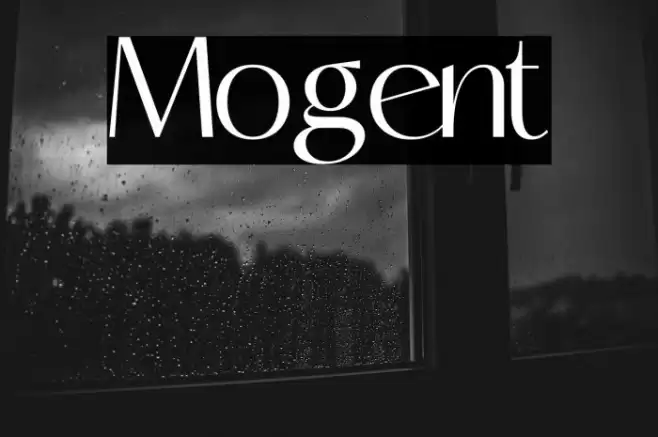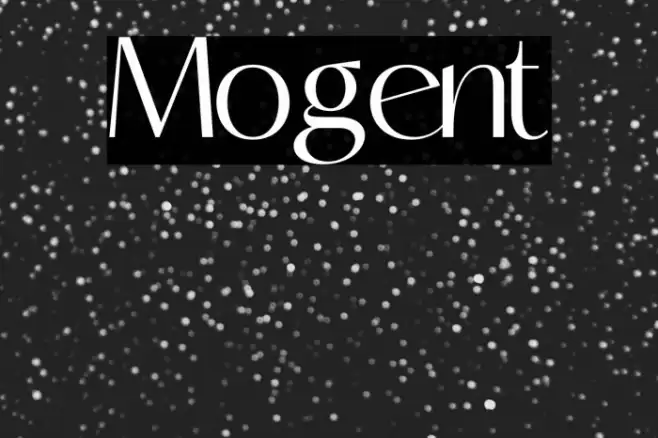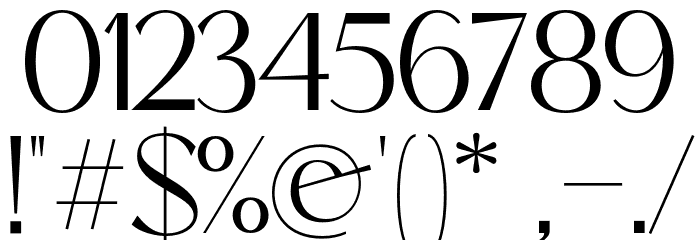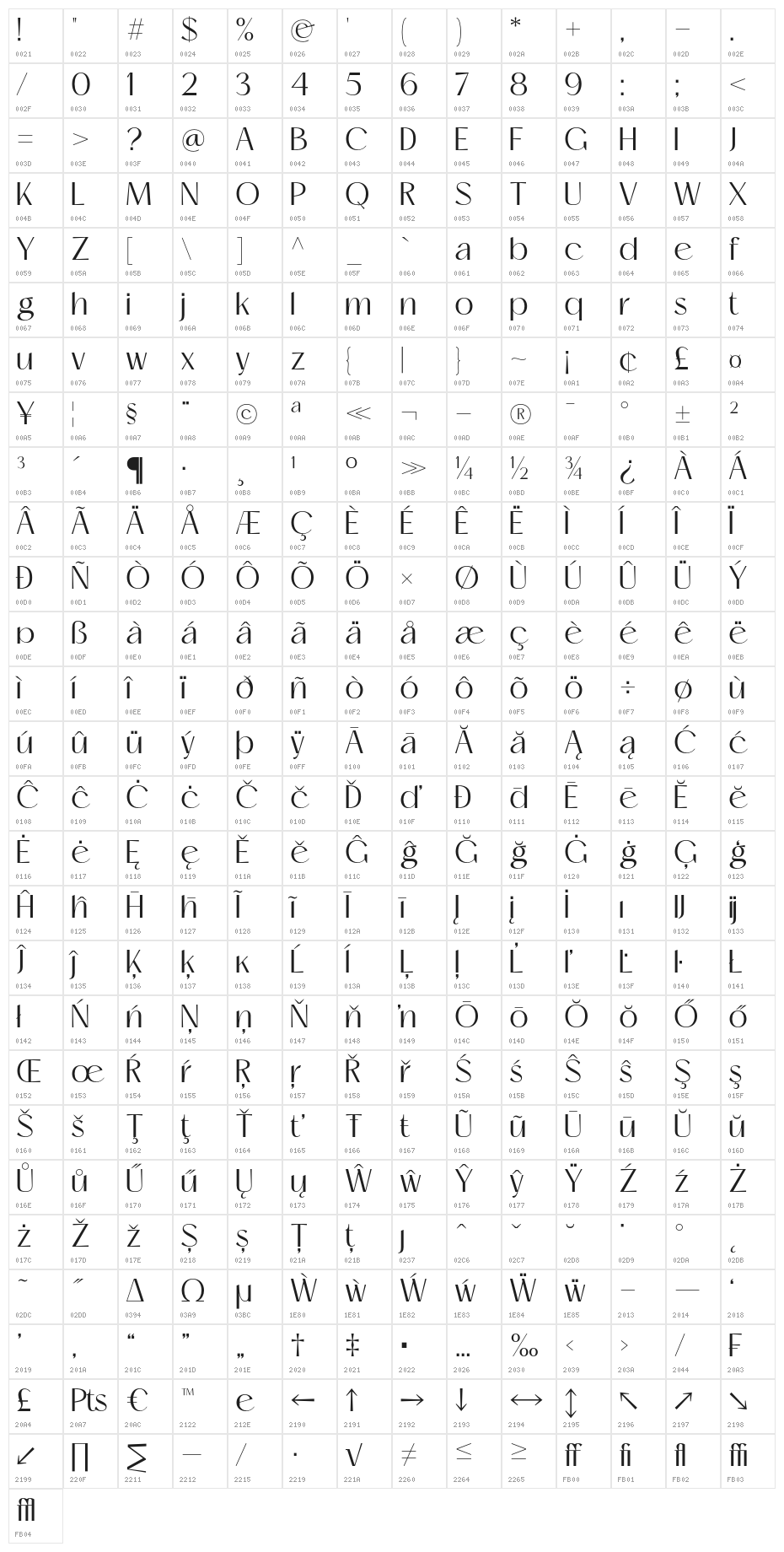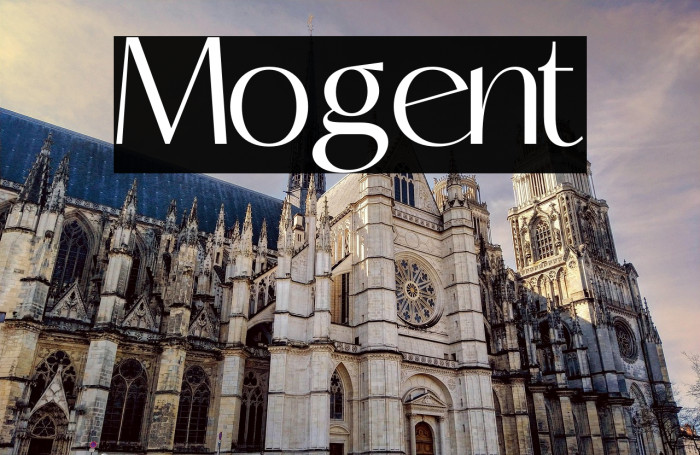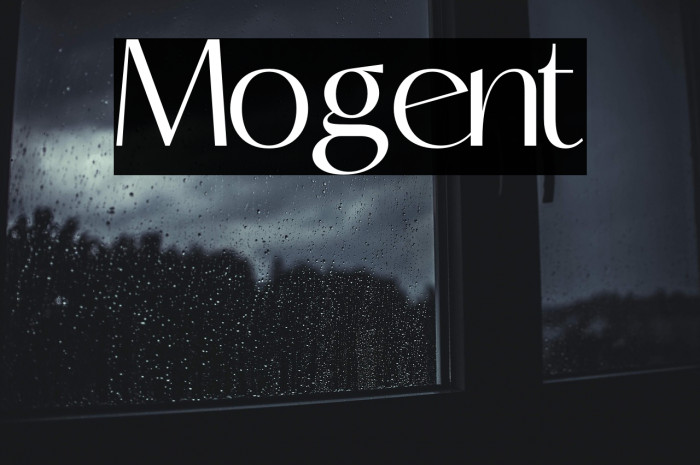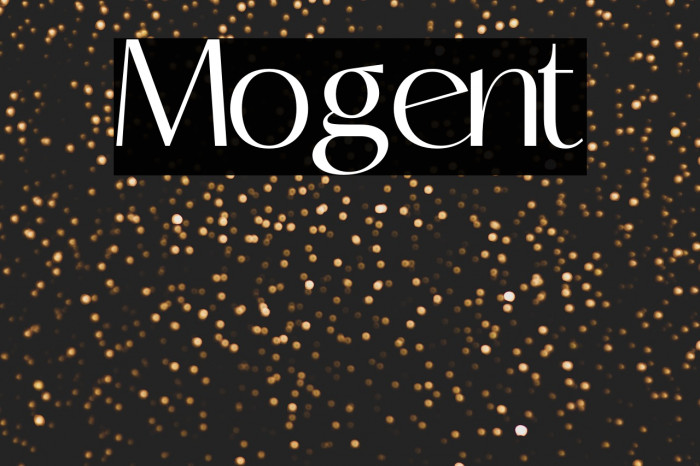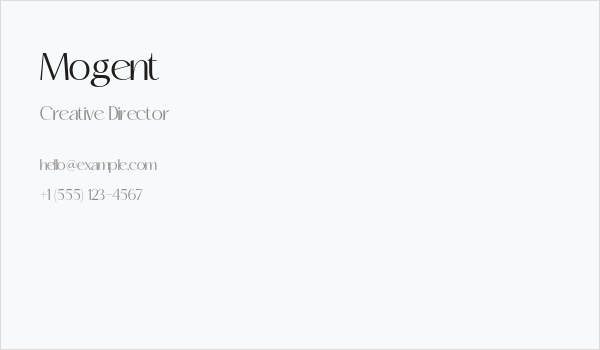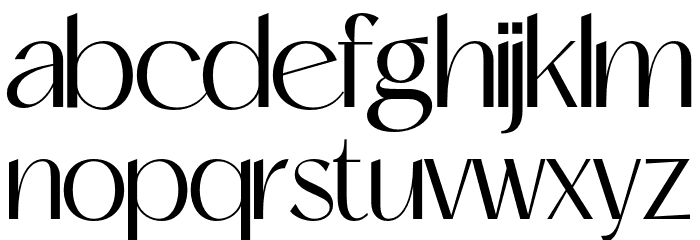
Mogent Font
Mogent Description
This font exhibits a modern and elegant style with a distinct geometric influence. The characters are sleek and elongated, with a subtle contrast between thick and thin strokes that adds a touch of sophistication. The uppercase letters are tall and commanding, while the lowercase letters maintain a harmonious balance with their rounded forms. The numerals are clean and consistent, complementing the overall aesthetic. The special characters are thoughtfully designed, ensuring versatility across various applications. This font's refined appearance makes it suitable for a range of creative projects.
A modern, geometric font with elegant, elongated characters and subtle stroke contrast from Thick fonts.
- Proposed Projects: Ideal for branding, editorial design, fashion magazines, and luxury product packaging.
- Use Case: Headlines, Logos, Editorial design